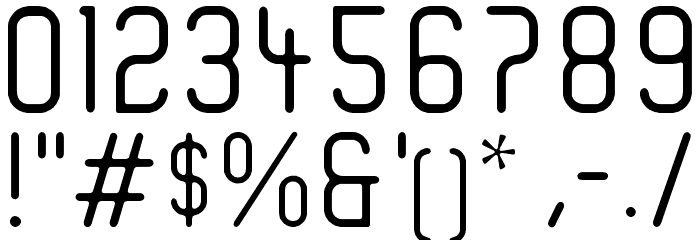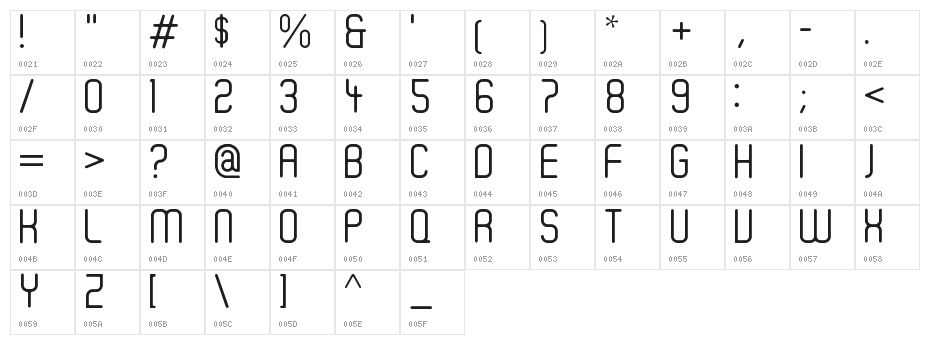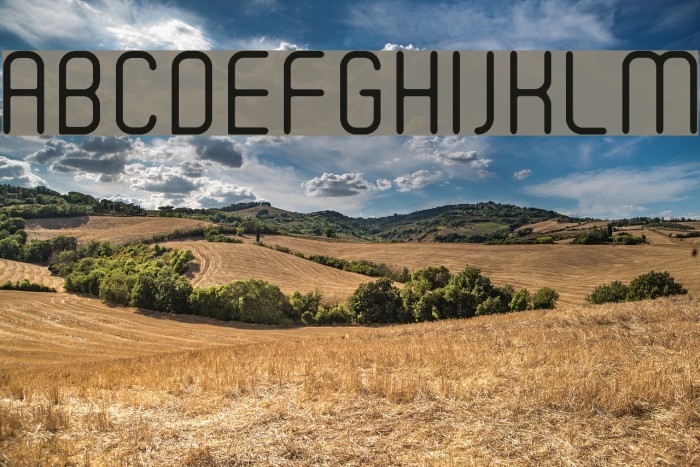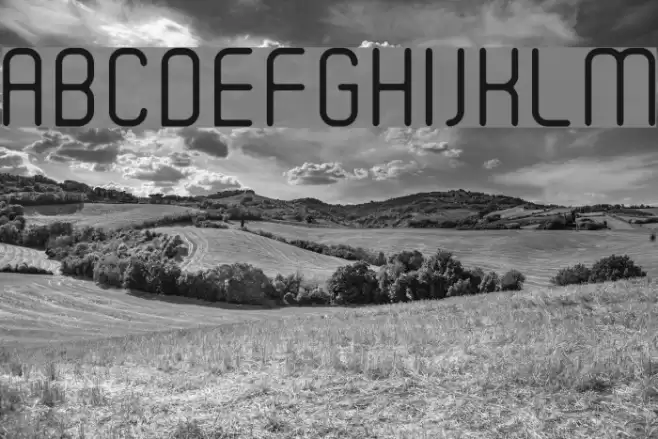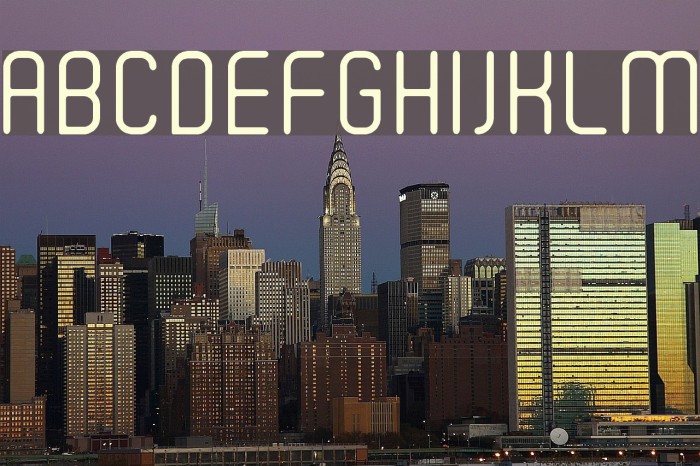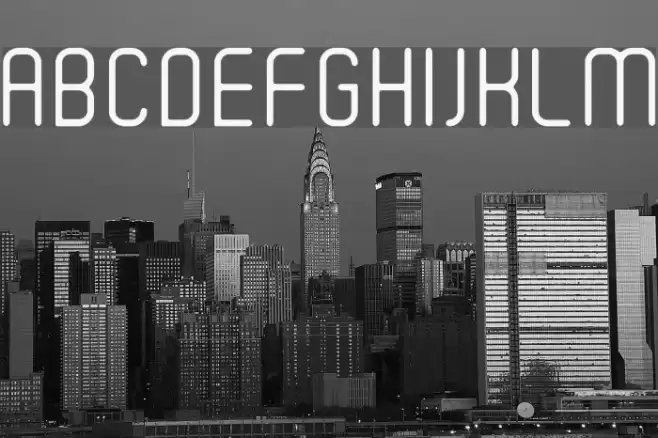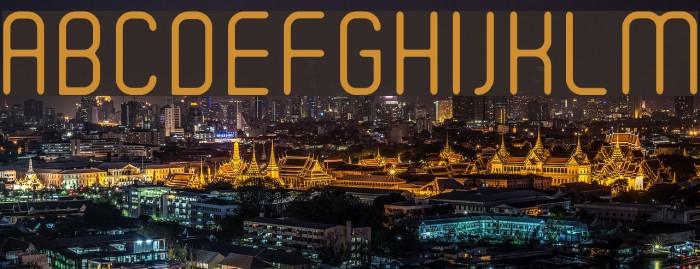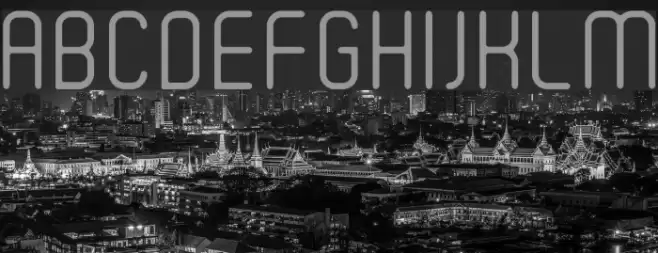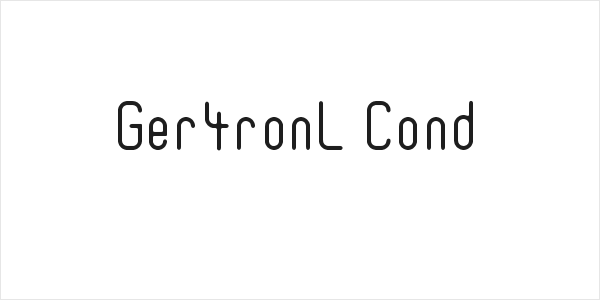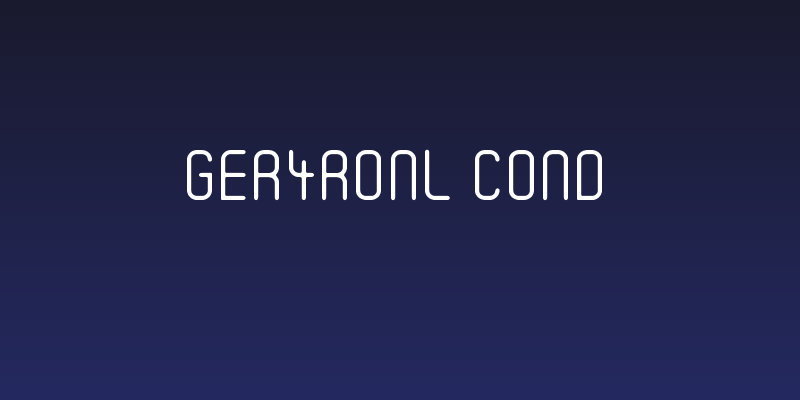
Ger4ronL Cond Font
Ger4ronL Cond Description
This font features a modern, rounded sans-serif style with a clean and minimalistic appearance. The characters are uniformly structured with smooth curves and consistent line thickness, giving it a sleek and contemporary look. The uppercase and lowercase letters maintain a harmonious balance, while the numerals and special characters are designed to complement the overall aesthetic. The rounded edges and uniform stroke width contribute to its approachable and friendly feel, making it versatile for various design applications.
| Use Case | Headlines, Logos, User Interfaces |
| Proposed Projects | Ideal for tech branding, user interfaces, signage, and modern advertising campaigns. |